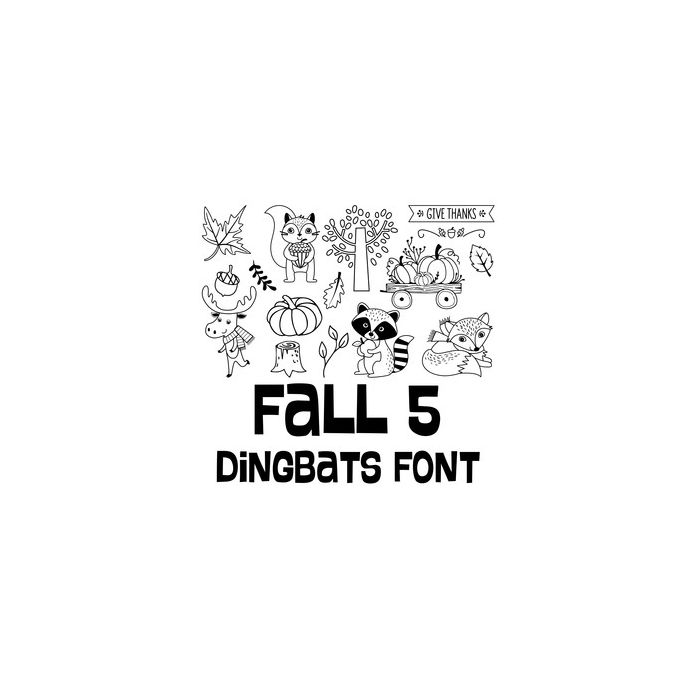
fall 5 dingbats font
This cute dingbat font includes 26 farm icons that you can type + cut to make adorable projects. For ideas and inspiration visit www.loriwhitlock.com and www.facebook.com/lori.whitlock.studio. For Lori's video tutorials visit www.youtube.com/loriwhitlock. For a full tutorials list visit www.loriwhitlock.com/blog/tutorials.